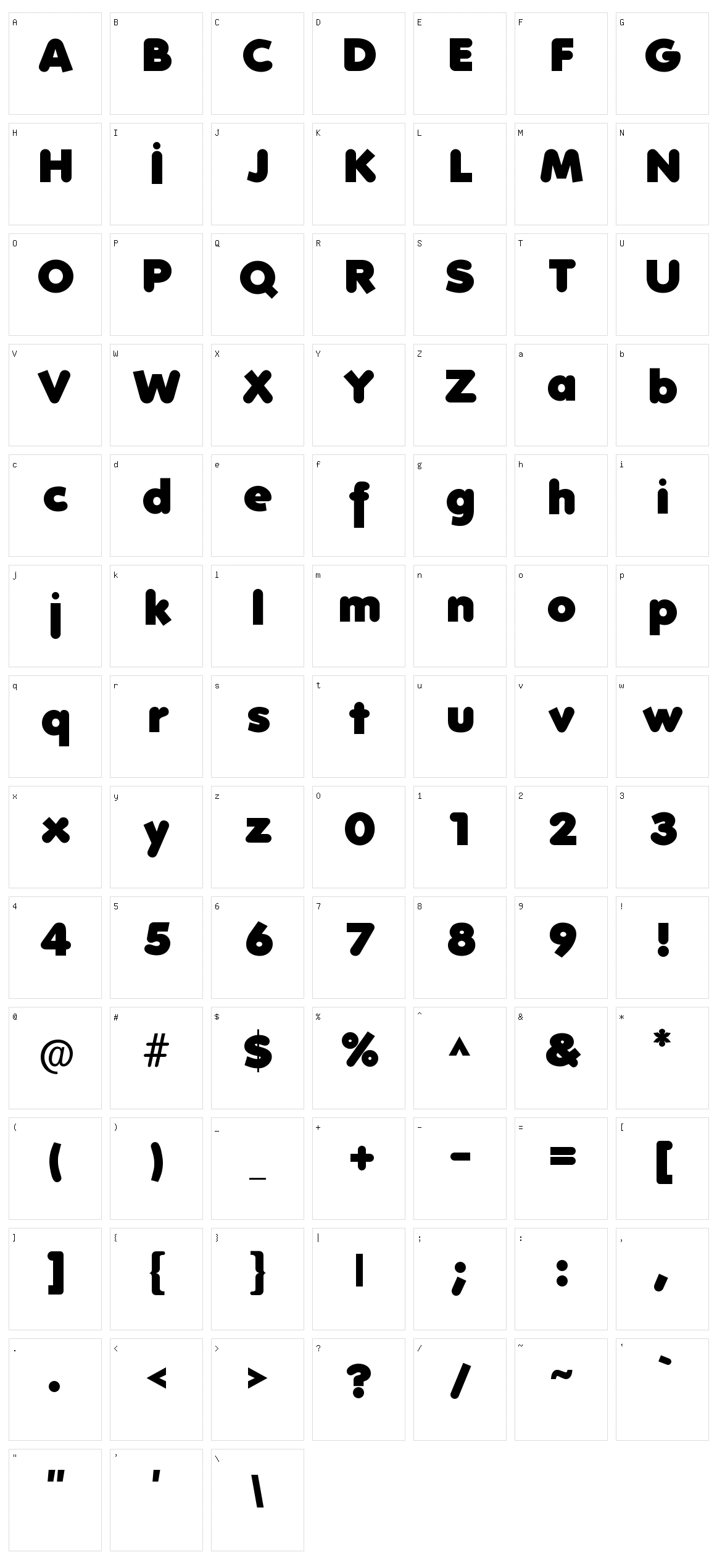
The free font Folks is carefully designed by Manfred Klein, showcasing a thoughtful balance of creativity and usability and falls under the Sans serif font style. When you download the ZIP file, it contains only 227.31 KB of font files, making it lightweight and quick to download. Please review the license details below to understand permitted usage and distribution rights. If license information is not available, we recommend using this font for personal projects only or contacting the author directly for commercial usage permissions.